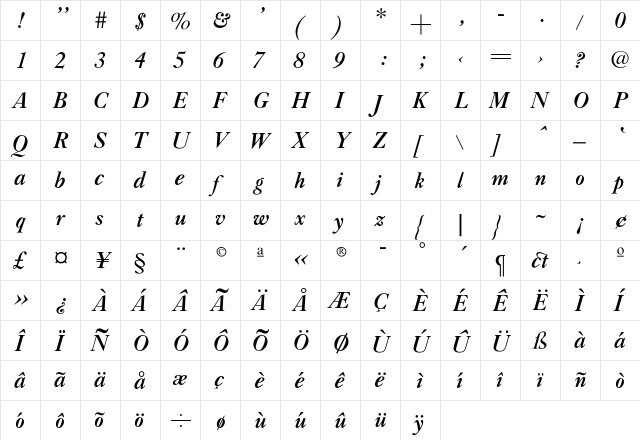
CaslonBoldZL-Italic Regular
Design Context for CaslonBoldZL-Italic Typeface
CaslonBoldZL-Italic offers clean, dependable letterforms without strong stylistic allegiance, making it a practical choice for designers who need flexibility. Its italic angle brings a sense of urgency and motion to the letterforms. The heavy weight commands attention and anchors typographic hierarchies.
Pro Tip: Use CaslonBoldZL-Italic for emphasis, pull quotes, and subheadings where its slanted energy can add rhythm to the layout.